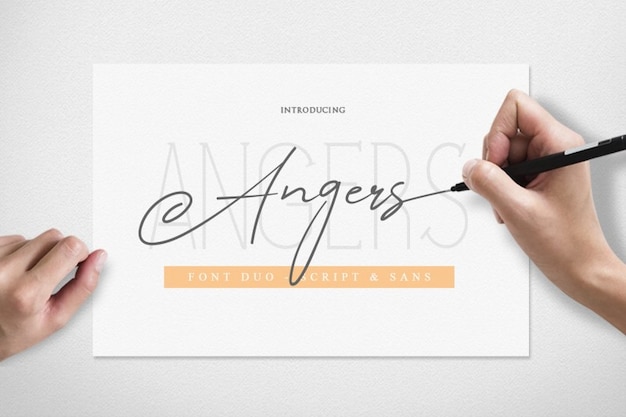
Angers
Angers Font
Khurasan Studio
Angers, a handwritten font, is the epitome of elegance in lettering. With graceful strokes and a touch of sophistication, each character dances on the page, transforming words into visual poetry. Whether conveying a sense of refined charm or adding a dash of sophistication to your projects, Angers captures the artistry of handwriting with an understated allure. Let your text resonate with the timeless grace of this font, elevating your designs to new levels of elegance and style.